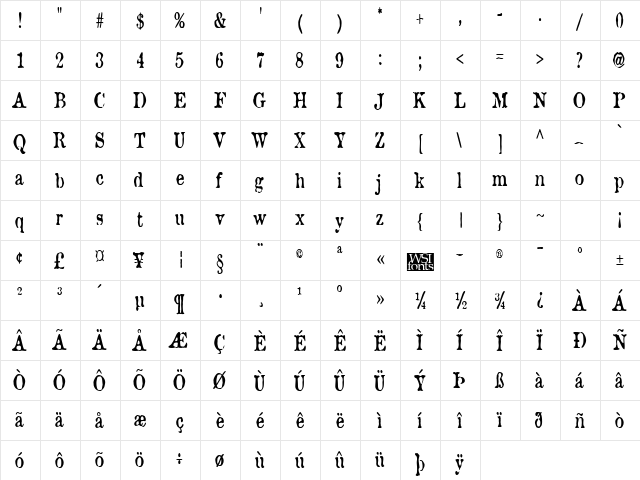
BrunineCnd Regular
Design Context for BrunineCnd Typeface
BrunineCnd takes a measured approach to typography — its balanced proportions and neutral character make it a reliable workhorse for both digital and print work.